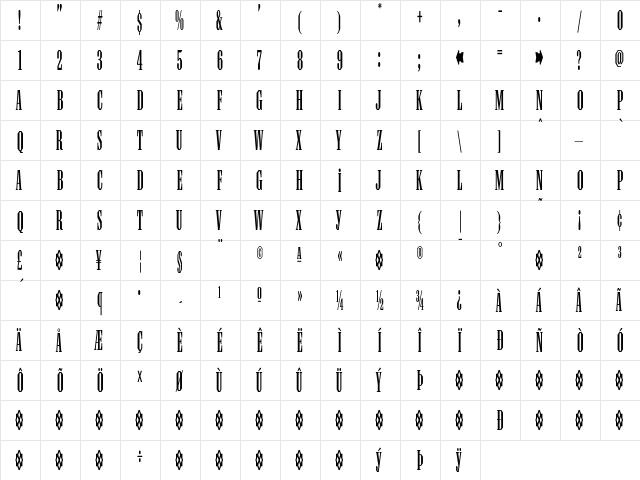
Ironmonger ExCondensed
Design Context for Ironmonger Typeface
Ironmonger offers clean, dependable letterforms without strong stylistic allegiance, making it a practical choice for designers who need flexibility. The condensed width makes it efficient for tight spaces without sacrificing legibility.